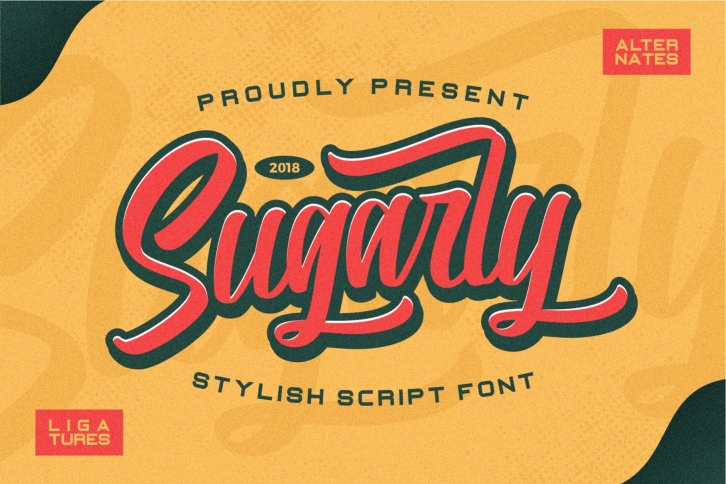
Sugarly is a Script font with typical vintage style, This font always gives an extraordinary touch for you,
Sugarly font is to use for any kind of design such as branding projects, logos, social media posts, advertisements, product packaging, product designs, labels, poster, photography, t-shirt, watermarks, stationery, and any projects.